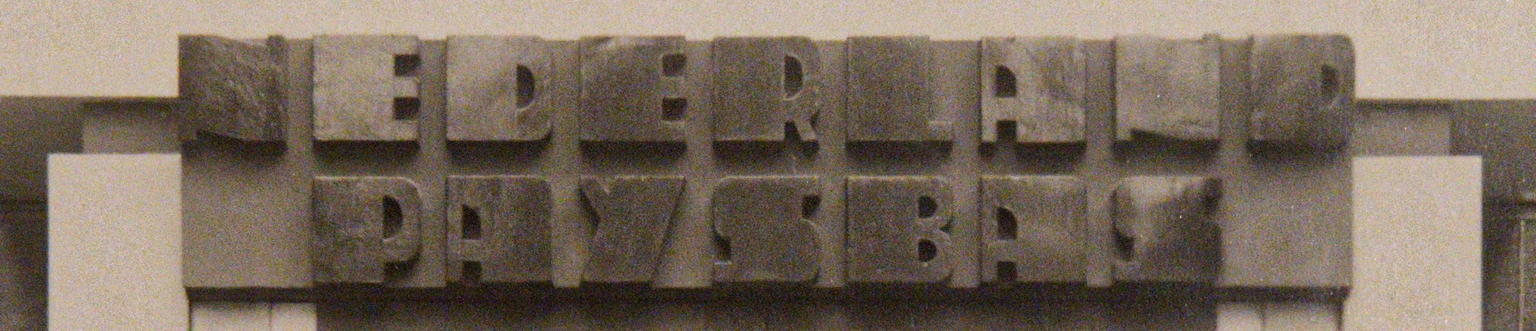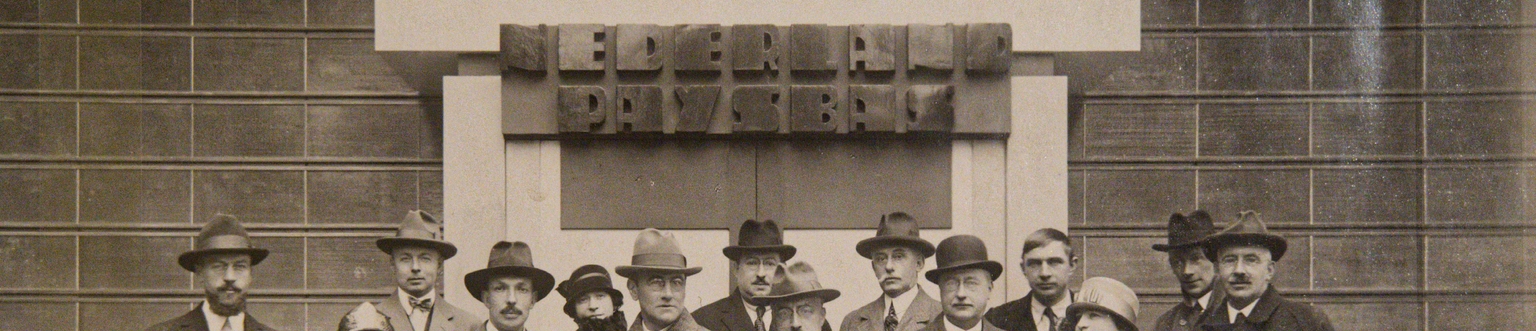
Paysbas
Paysbas is a modular, blockish display typeface designed by Ramiro Espinoza and inspired by the lettering used to identify the Dutch Pavilion at the 1925 Exposition internationale des arts décoratifs et industriels modernes in Paris. Created at a time when architecture, graphic design, and applied arts were closely connected, the original letters reflect the Netherlands’ contribution to early modern design through a rational, structural, and clearly constructed approach to form.
Espinoza examined the proportions and modular logic of this historical lettering and translated its underlying principles into a contemporary digital typeface. Rather than reproducing the shapes literally, he refined the geometry, corrected inconsistencies, and expanded the character set to support present-day typographic use. The resulting font preserves the architectural clarity of its source while offering consistency and versatility.
With its solid construction and direct visual language, Paysbas is well suited for posters, editorial design, signage, branding, exhibitions, gaming applications, and digital media. It provides designers with a typeface that connects interwar ideas of functional modernity to contemporary graphic practice, offering a clear and historically informed typographic voice.